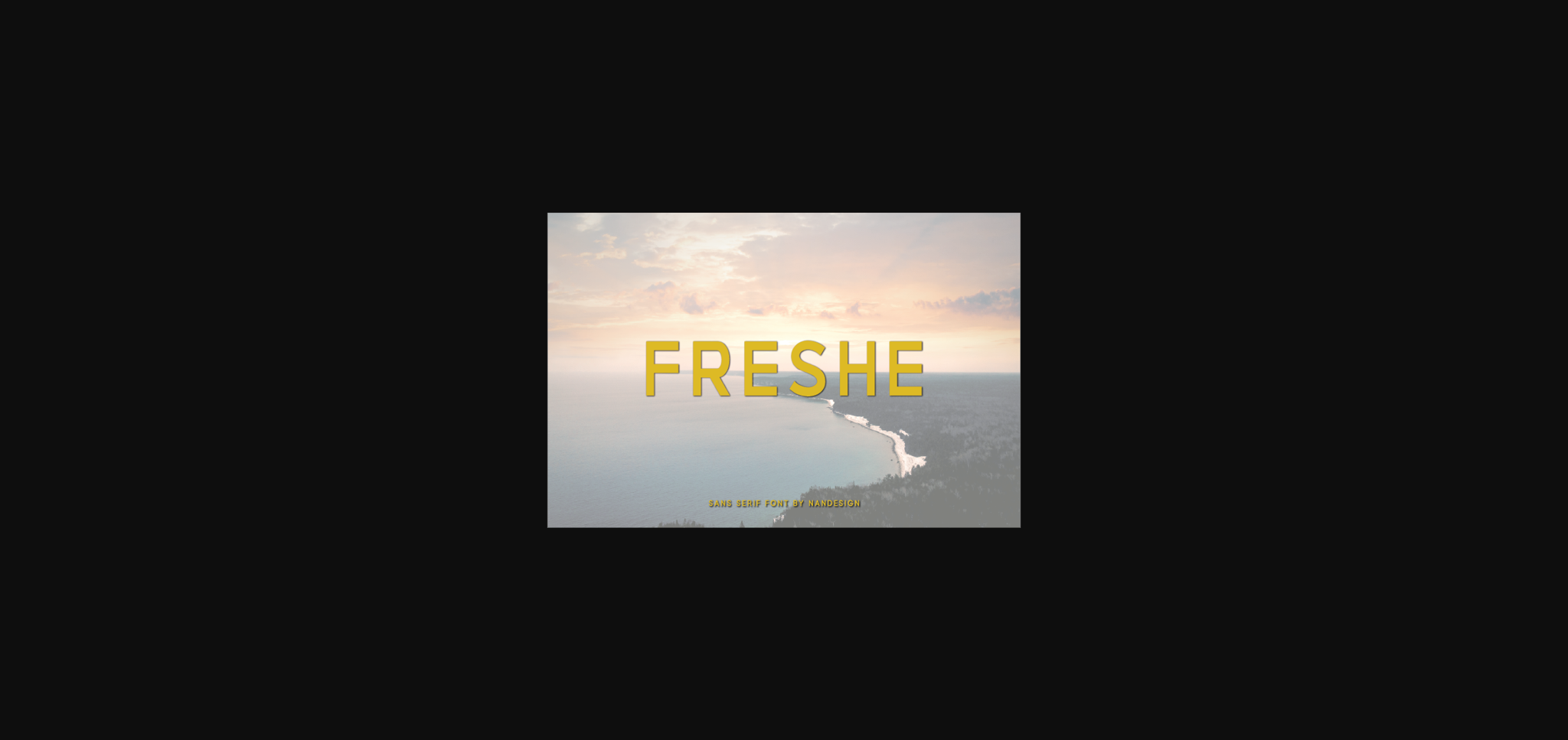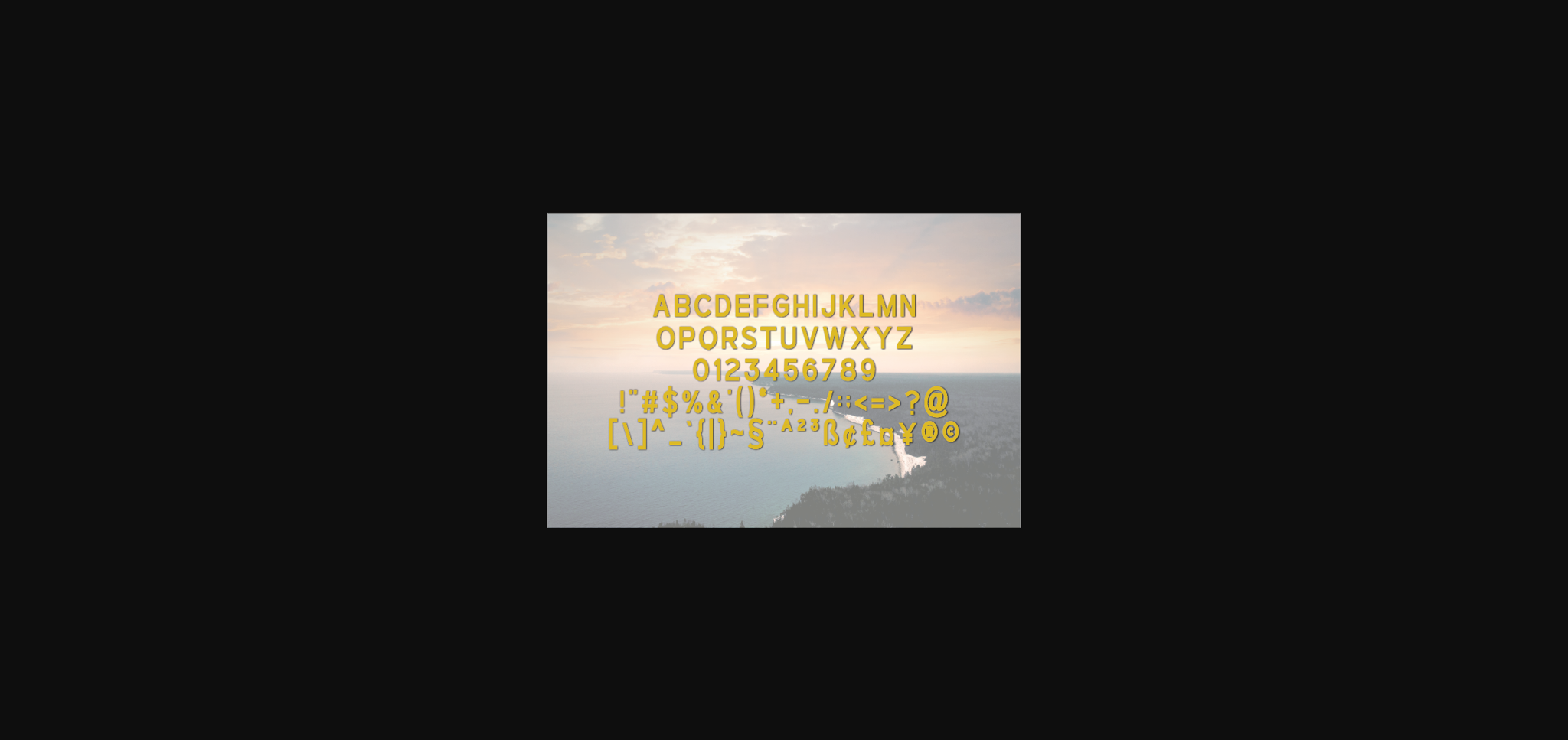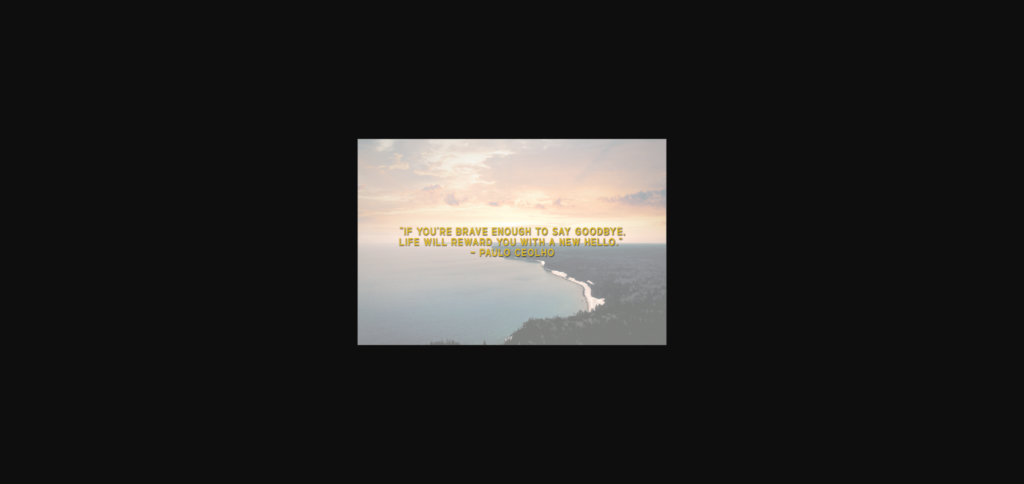
HomeSans Serif FontsFreshe Font Sans Serif Fonts Freshe Font FacebookXPinterestWhatsApp 1 of 5 ... Freshe Font Poster 2... Freshe Font Poster 3... Freshe Font Poster 4... Freshe Font Poster 5... About Freshe Font Freshe is a clean and fresh sans serif font. It can easily be matched to an incredibly large set of projects, so add it to your creative ideas and notice how it makes them stand out! DOWNLOAD NOW People also explored Cookies and Milk Font Billagoos Font Little Snowman Story Font Giorsael Font Busling Script Happy Easter Font Content Creator – Playful Typeface Handmade Font Sunflower Font 454 0 TagsFresheFreshe Font Previous articleNutrlein FontNext articleProftale Font LEAVE A REPLY Cancel reply Comment: Please enter your comment! Name:* Please enter your name here Email:* You have entered an incorrect email address! Please enter your email address here Website: Save my name, email, and website in this browser for the next time I comment. Personal Use Free Helsinki Personal Use Free Read more about this font Authurium Personal Use Free Read more about this font Adventure Font Personal Use Free Read more about this font Talking on Personal Use Free Read more about this font BLOG 5 Fonts That Will Dominate Design Trends in 2026 5 Fonts for 2026 That Will Dominate Design Trends Typography plays a critical role in visual communication, and as we look ahead to 2026, it’s... Best Fonts for T-Shirt Design – Top 2025 Picks Free Fonts Risk: Why Free Fonts Can Be Dangerous for Designers Transform Your Website: Elevate Your Typography with 7 Best Web Font Generators